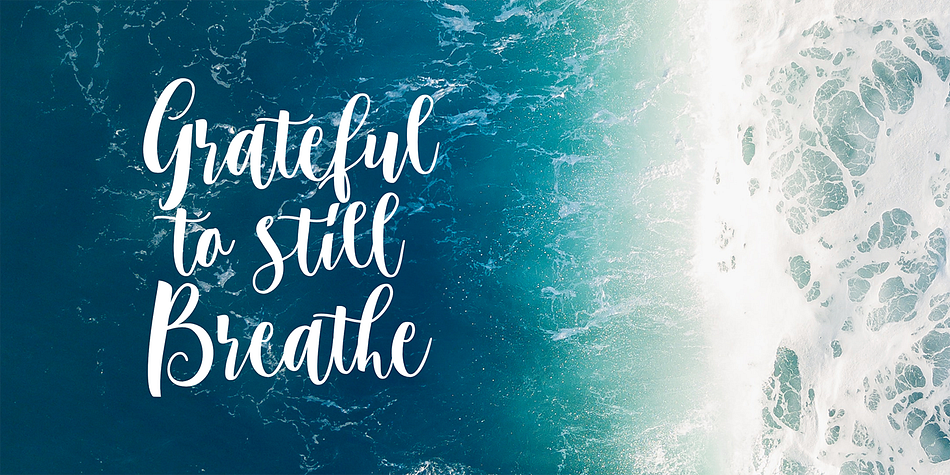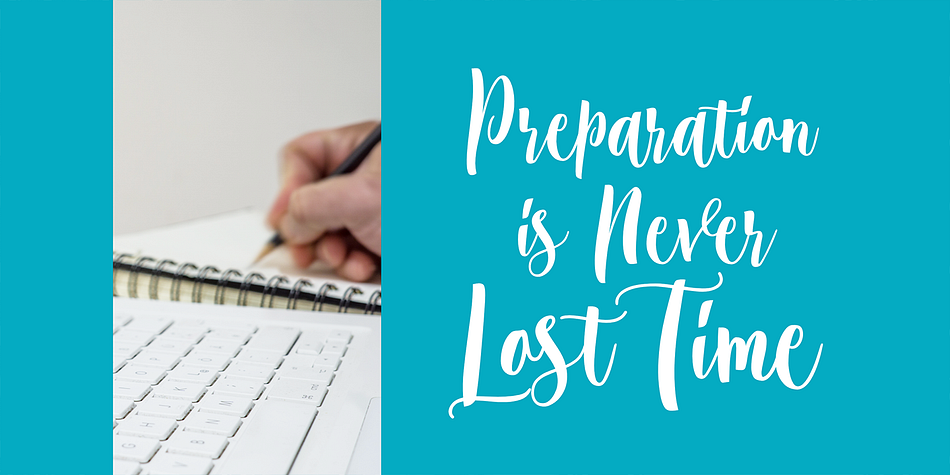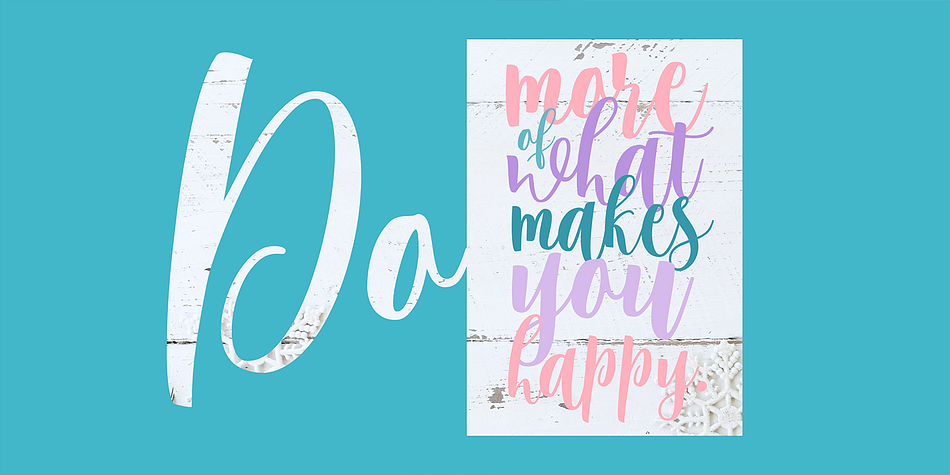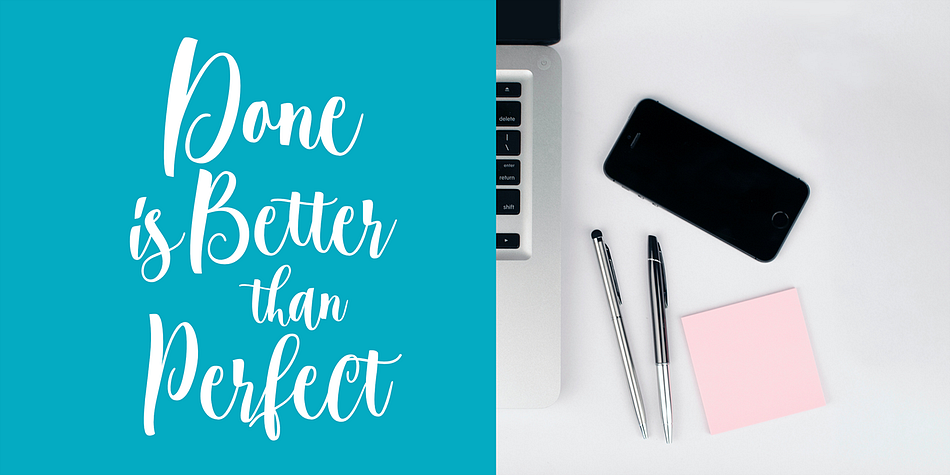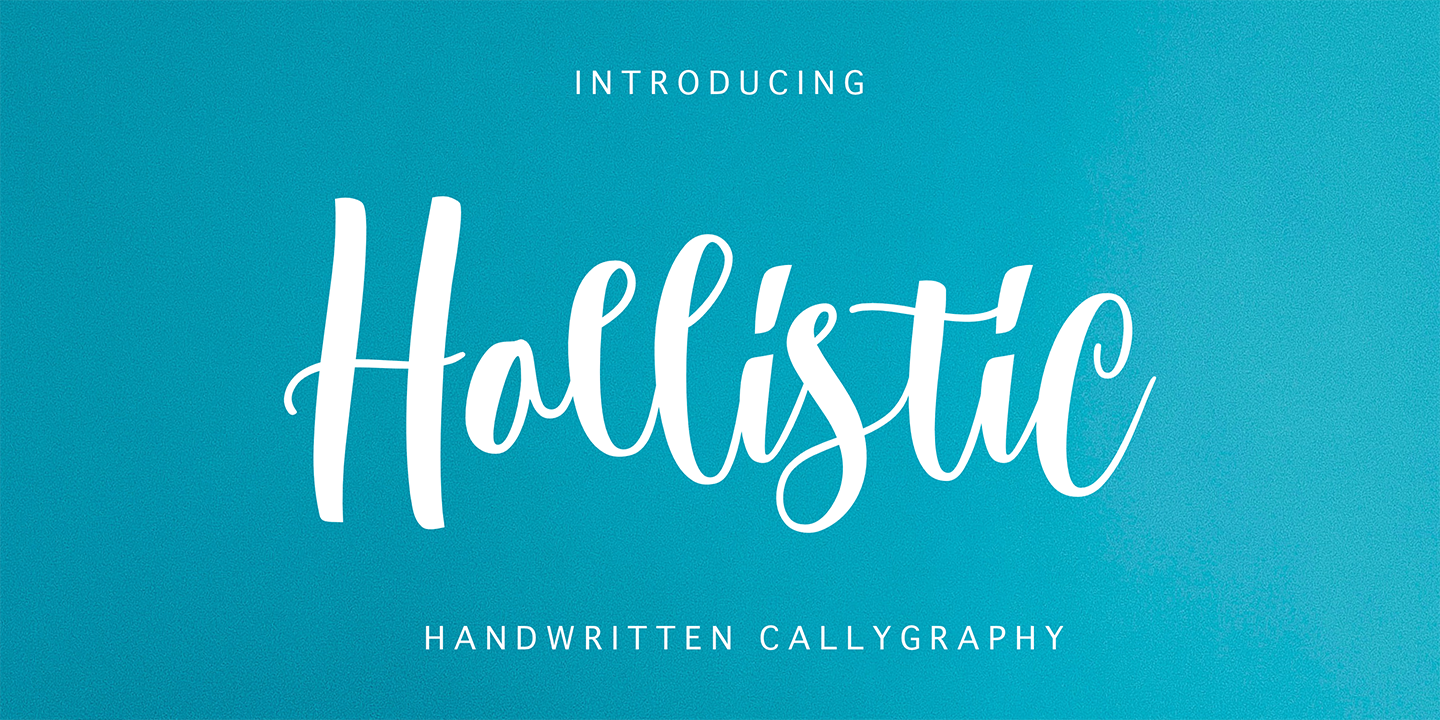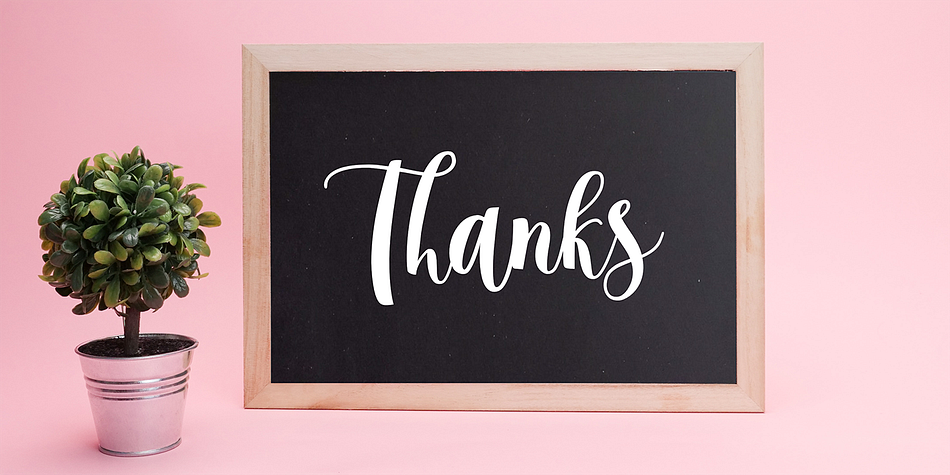
Hollistic
Hollistic is a brush script font family published by Gatype.
Hollistic is a sweet, versatile, unique and flexible handwritten font. Warm, jovial and compromise. This font will turn any of your project ideas into anything true works of art! This font is PUA encoded which means you can access all of the glyphs and swashes with ease!